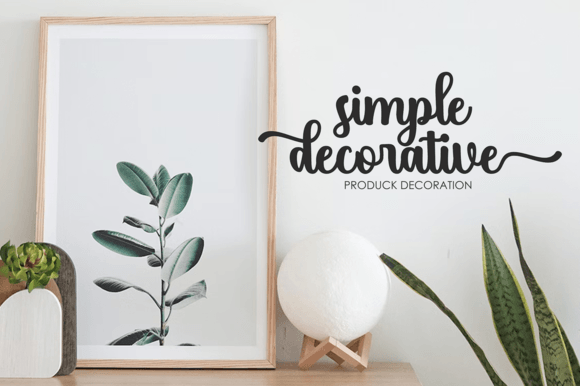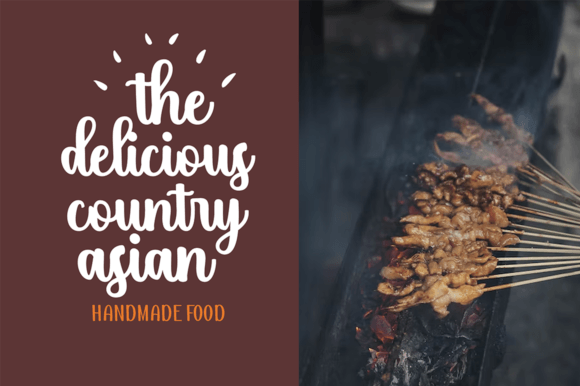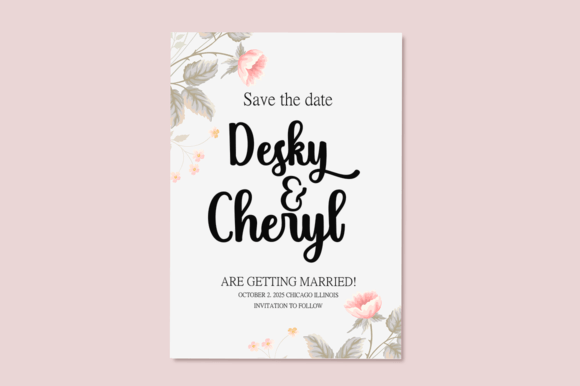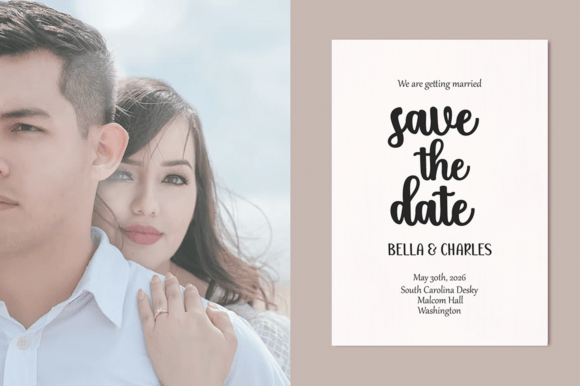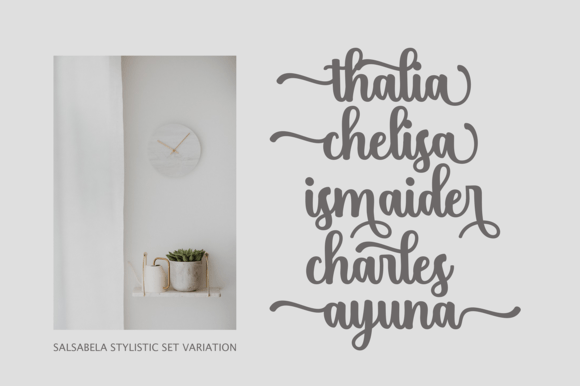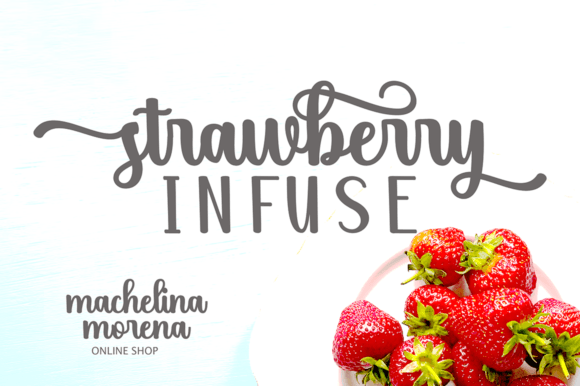
Introduction to Salsabela Script Font
As a designer, have you ever found yourself staring at a blank canvas, longing to add that perfect touch of elegance to your creative project? Perhaps you’ve been searching for a font that can elevate your design from ordinary to extraordinary, something that can make your words dance across the page. If that’s the case, then you’re in luck! The Salsabela Script Font is here to revolutionize your design game.
This romantic and sweet calligraphy typeface is designed to add a luxury spark to any project you take on. With its PUA-encoded characters and ligatures, you can create high-quality designs that are truly one-of-a-kind. Whether you’re working on a wedding invitation, a branding project, or a simple social media post, the Salsabela Script Font is the perfect design resource to help you stand out from the crowd.
Key Features of Salsabela Script Font
- Unique, elegant script font ideal for creative projects requiring a high-quality design resource.
- Perfect for wedding invitations, quotes, and other creative projects where a beautiful, handwritten font is desired.
Honest Review: Salsabela Script Font
I recently stumbled upon the Salsabela Script Font, and I must say it’s a lovely addition to my design resources. With its elegant and refined feel, it’s perfect for those creative projects that require a touch of sophistication.
One of the things I appreciate about this font is its high quality. The lines are smooth, and the letterforms are well-designed, making it a joy to work with. Plus, it’s available for free download, which is a huge bonus.
- ✨ Elegant and refined feel that’s perfect for creative projects
- ✨ Smooth lines and well-designed letterforms
- ⚠️ The font may not be suitable for projects that require a bold or dramatic feel
- ⚠️ It may not work well with transparent backgrounds, as the lines can become a bit fuzzy
Overall, I’m quite impressed with the Salsabela Script Font. It’s a great addition to my design arsenal, and I’m sure I’ll be using it for many creative projects to come.
Tips for Getting the Most Out of Salsabela Script Font
Use a transparent background to make your text stand out. Experiment with different font sizes and colors to create a unique design. This font is perfect for creating a high-quality, design resource that will elevate your creative project.
The Salsabela Script Font is perfect for creating wedding invitations, birthday cards, or any other occasion that requires a creative and unique font. You can also use this font for branding and logos, as it adds a touch of elegance and sophistication to any design.